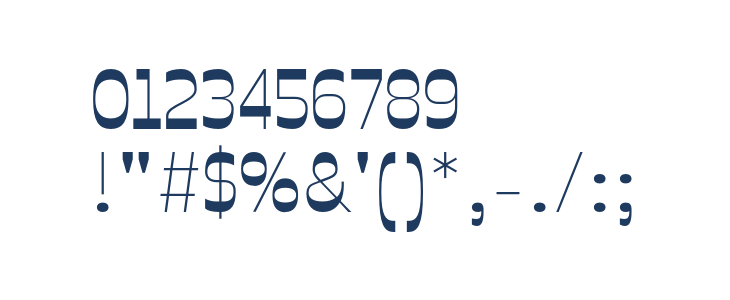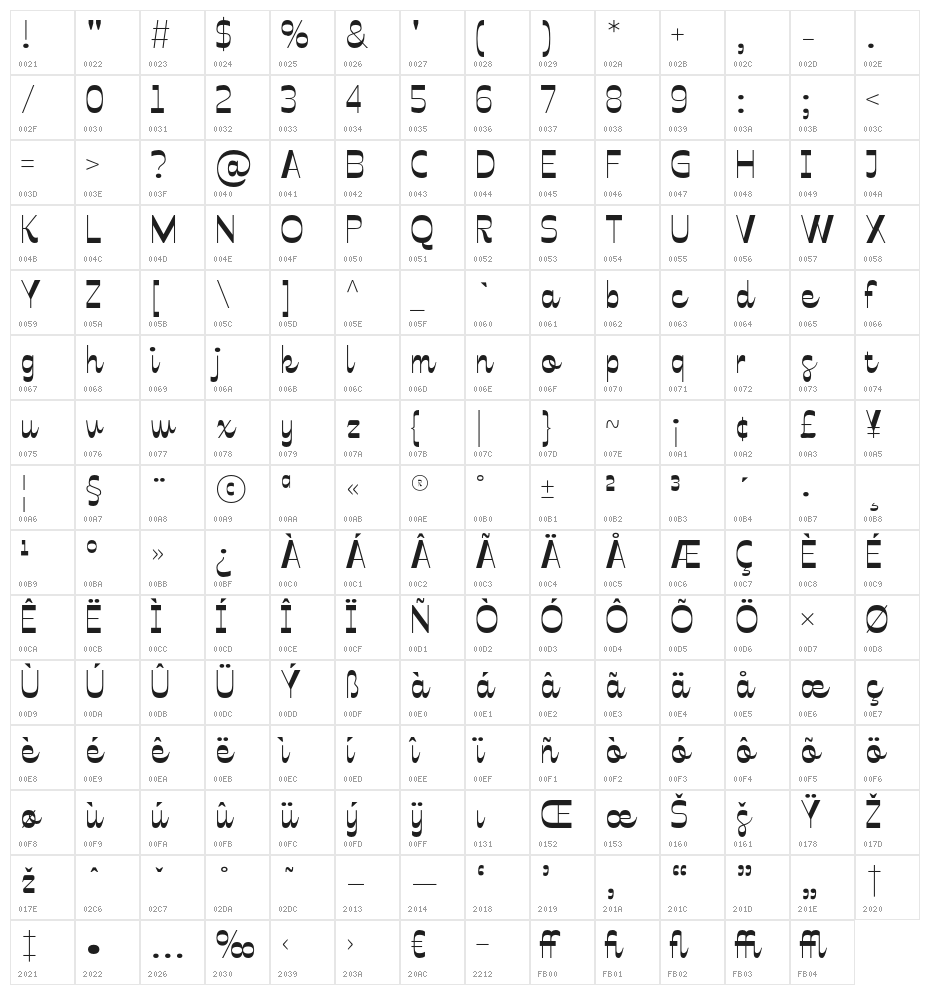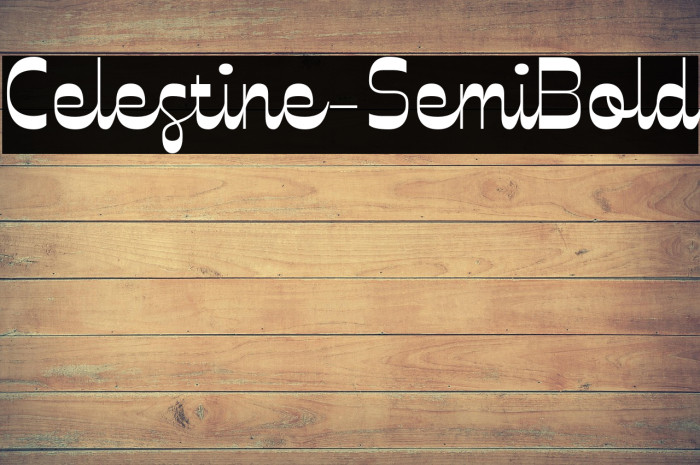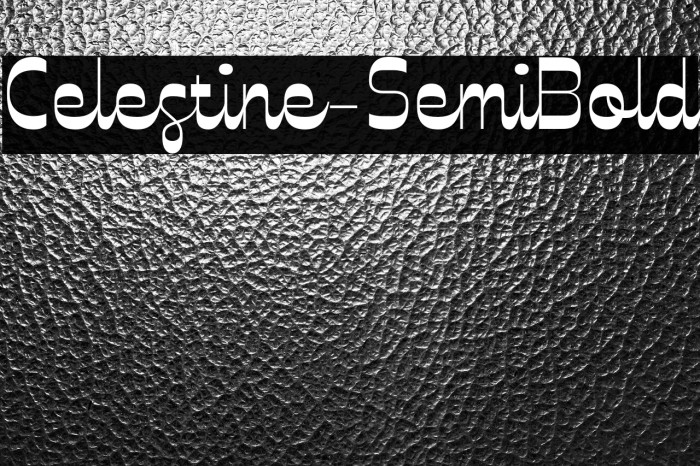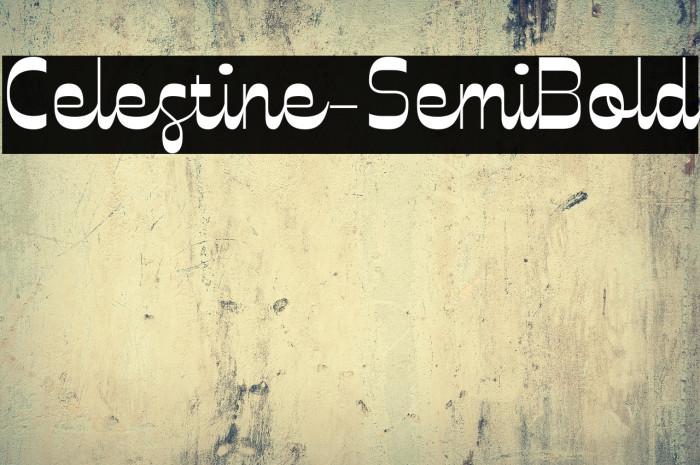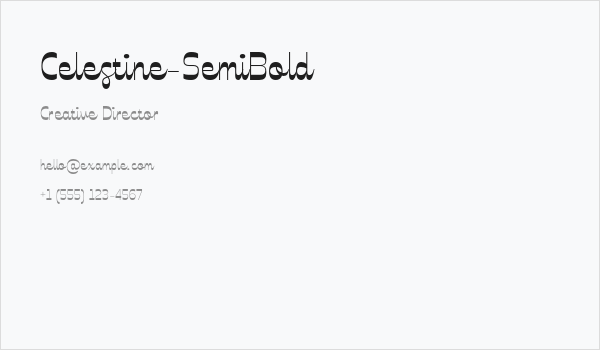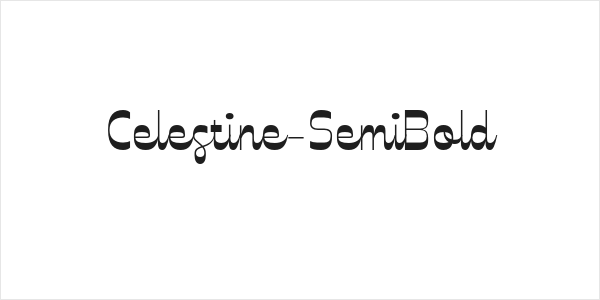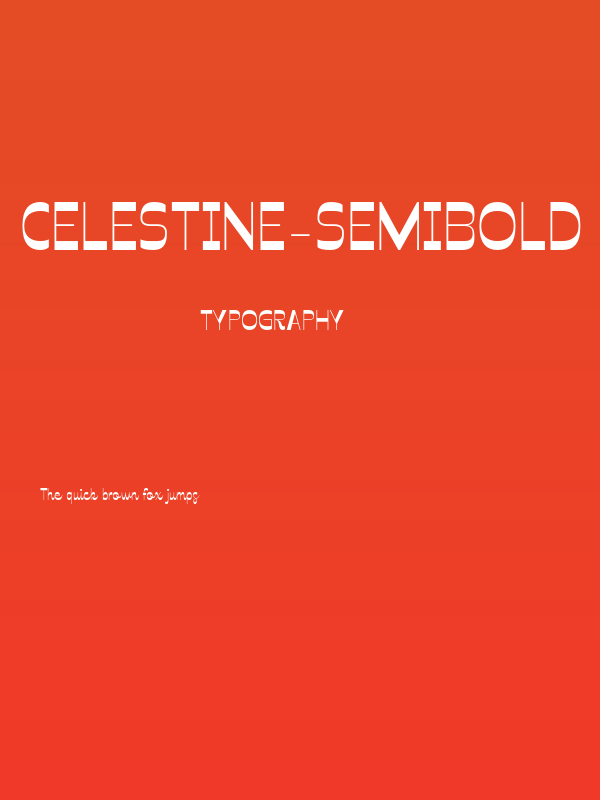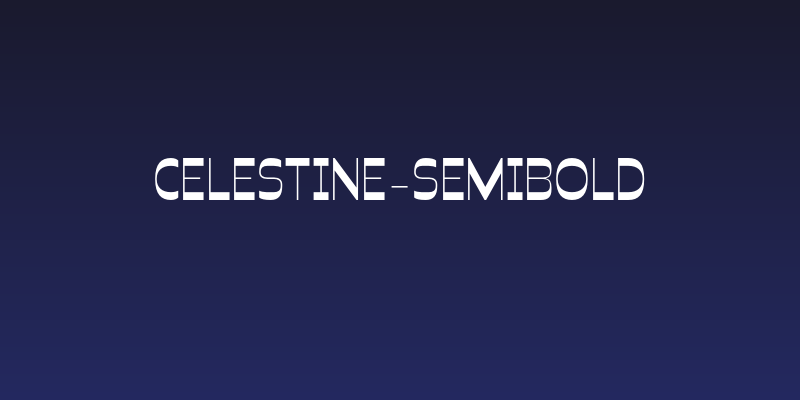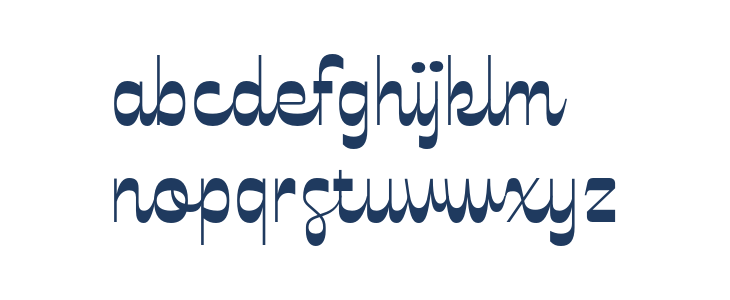
Celestine-SemiBold Font
Celestine-SemiBold Description
This font features a modern and sleek design with a semi-bold weight, offering a unique blend of geometric and cursive elements. The uppercase letters are characterized by clean lines and a slight curvature, giving them a contemporary feel. The lowercase letters exhibit a more playful and flowing style, with some characters having distinctive loops and tails. The numerals are bold and clear, ensuring readability. Special characters maintain the font's overall aesthetic, providing a cohesive look across all glyphs.